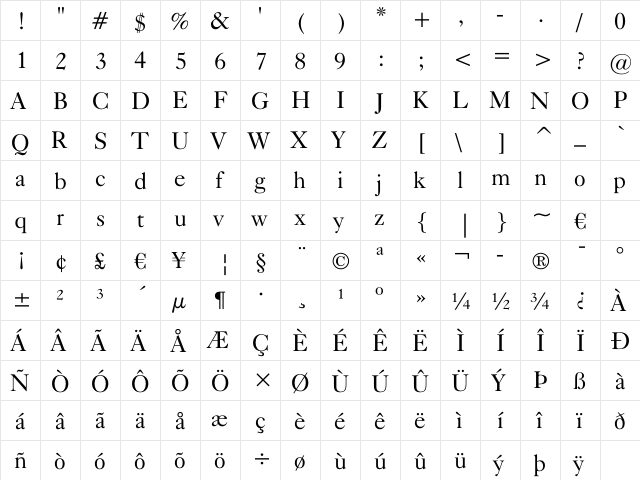
Caslon540 Regular
Design Context for Caslon540 Typeface
Caslon540 offers clean, dependable letterforms without strong stylistic allegiance, making it a practical choice for designers who need flexibility.